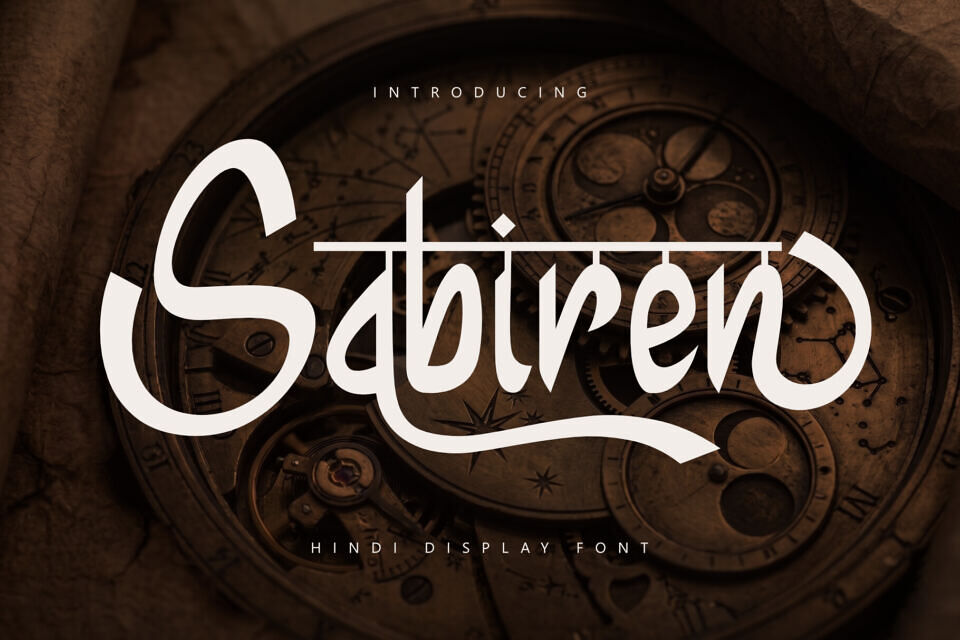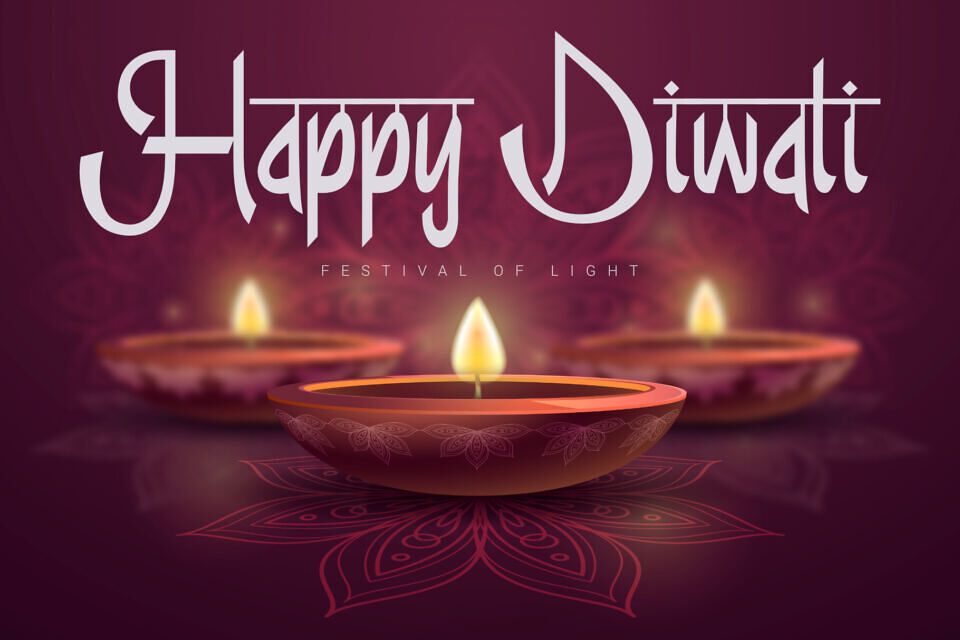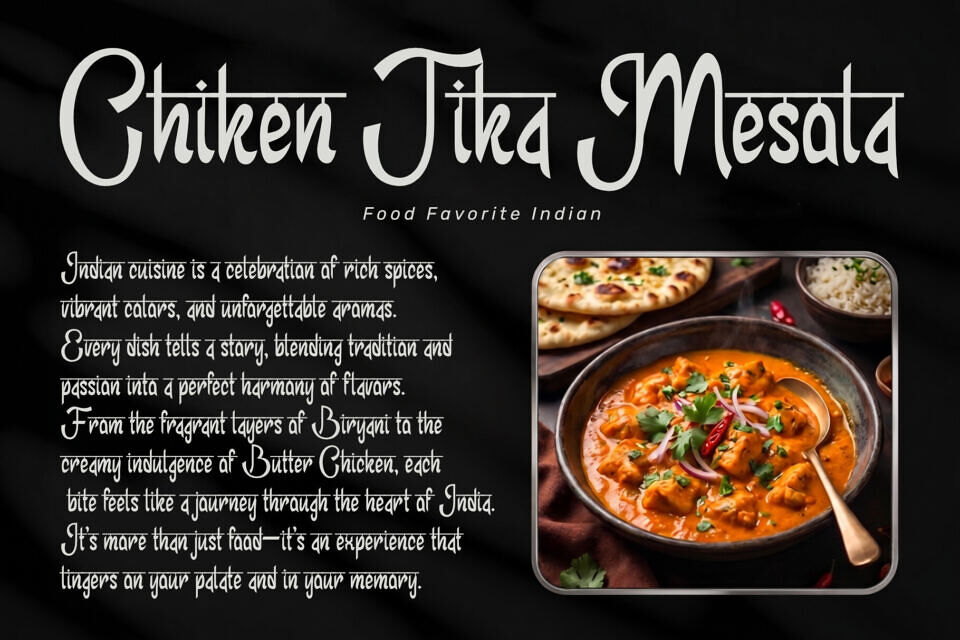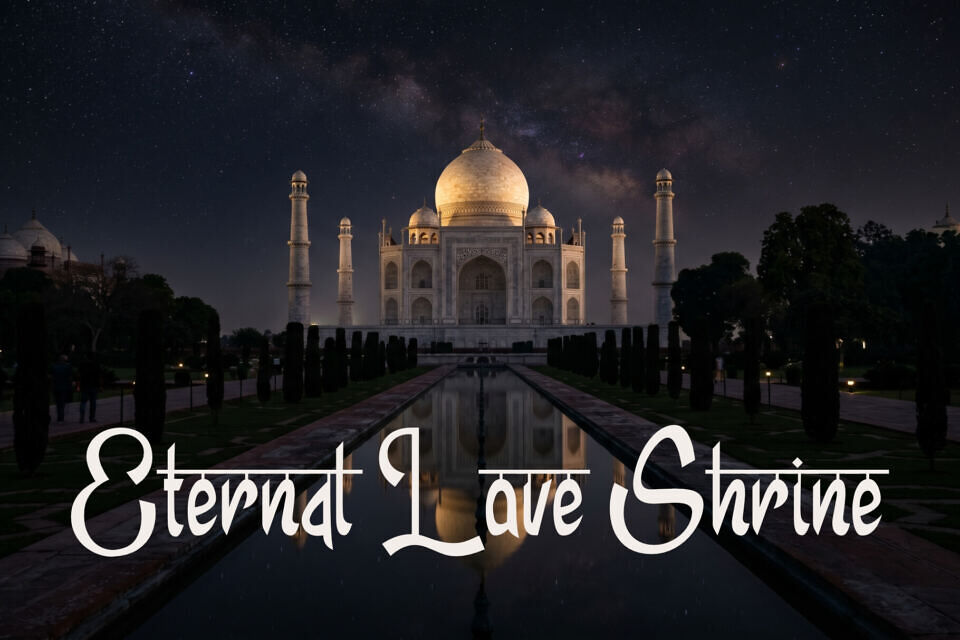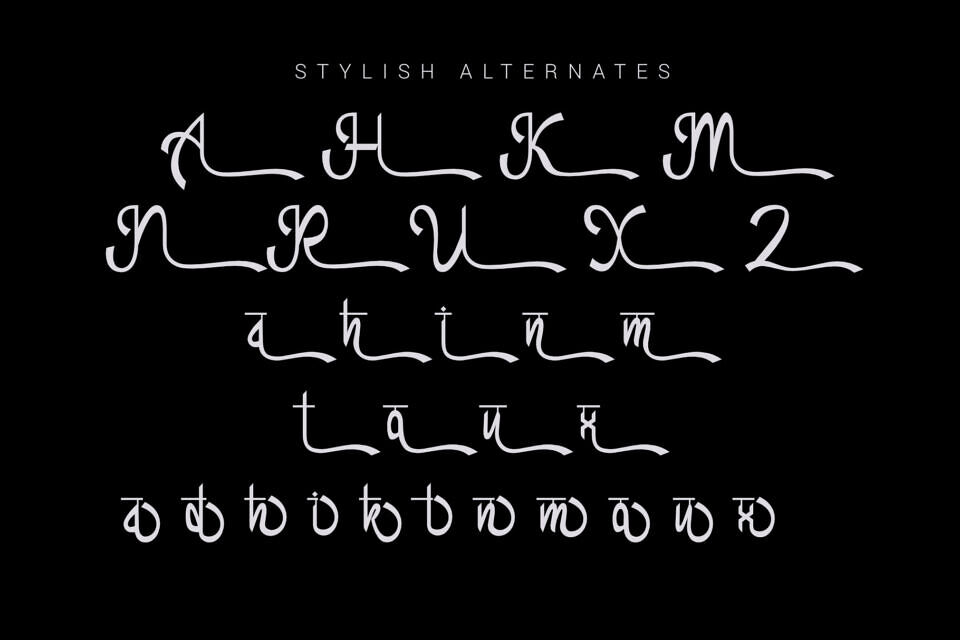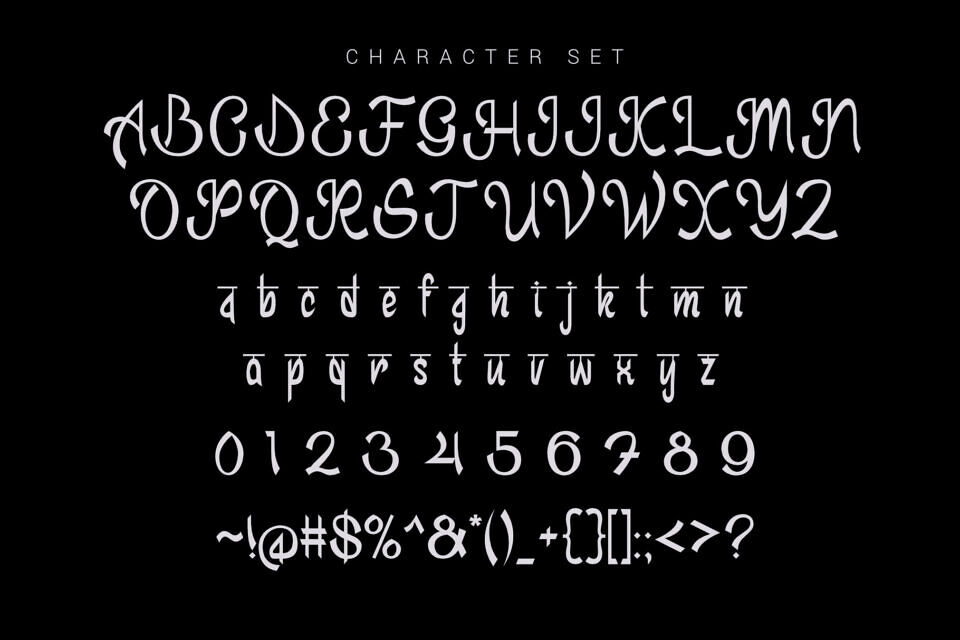
Sabiren Font
Sabiren is a Hindi display font designed to bring beauty, cultural character, and expressive style to your typography. Featuring distinctive Devanagari-inspired letterforms, smooth curves, and balanced shapes, Sabiren creates a visually appealing and artistic typographic presence.